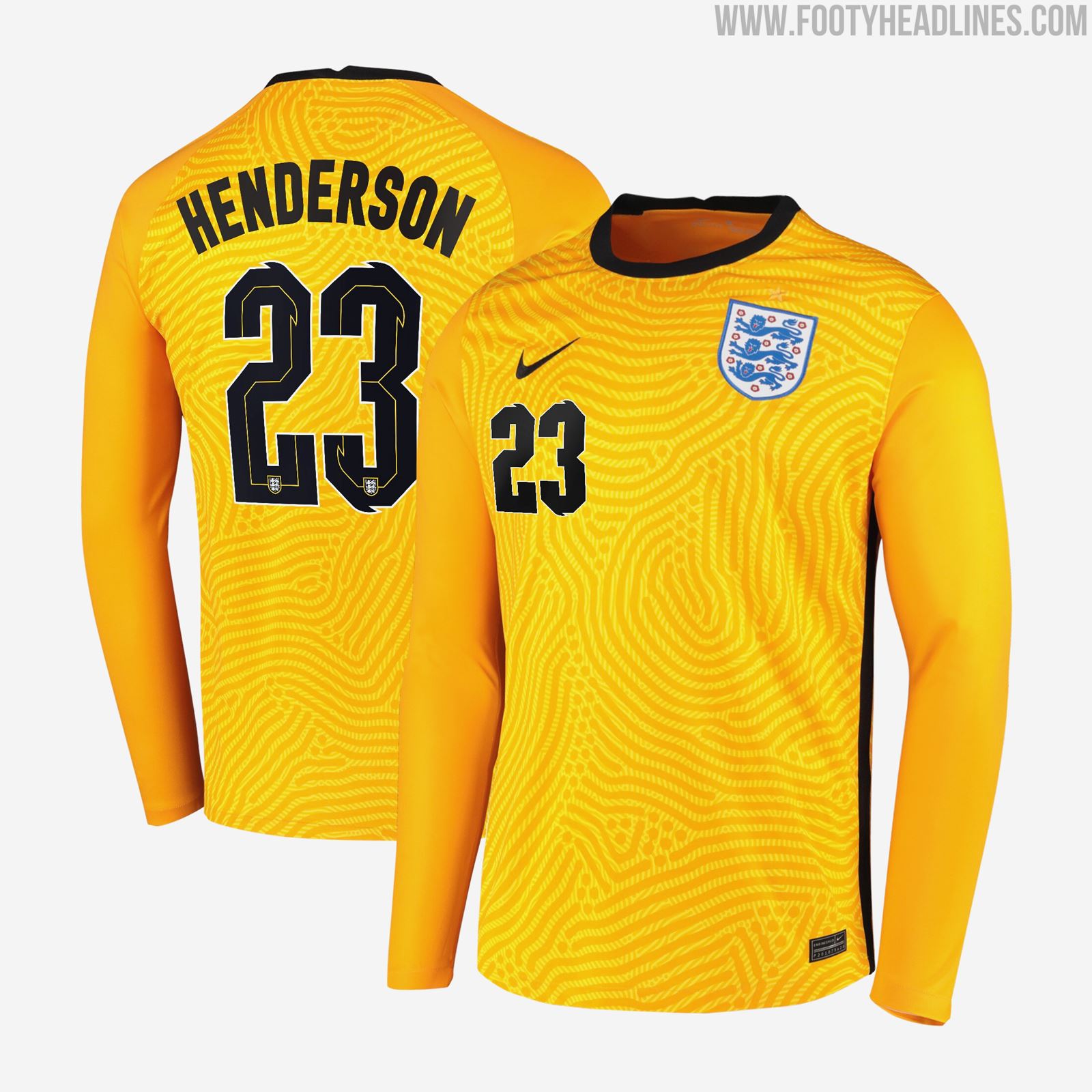
Nike England 2020 Kit Font Released - Big Upgrade To Kits
The Nike England 2020 kits come with an exclusive kit typeface for the England national team - it upgrades the look of the kits, especially the rather 'plain' home kit.
Nike England 2020 Kit Font
The font for the Nike England 2020 jersey features a remarkable design that upgrades the look of the jersey. According to Nike, the exclusive font is "inspired by the Three Lions’ identity".
To fit with the kits, England's kit numbers are tricolor, with the colors of the respective jerseys - England's font is red / white / navy for the home, white / red / blue for the away and black / white / yellow for the yellow keeper kit.
The England FA logo is on the bottom of the Nike England 2020 kit numbers.
The typeface for the Nike England 2020 kit was released together with the kit on September 1 2020.